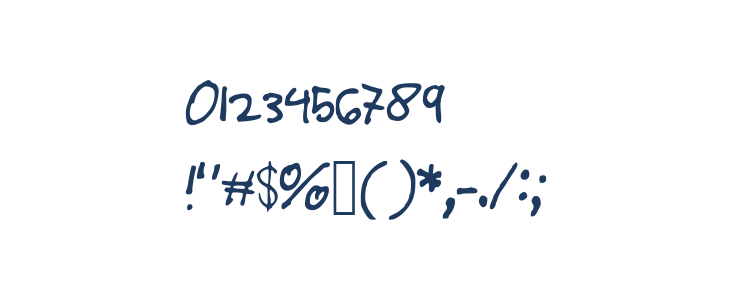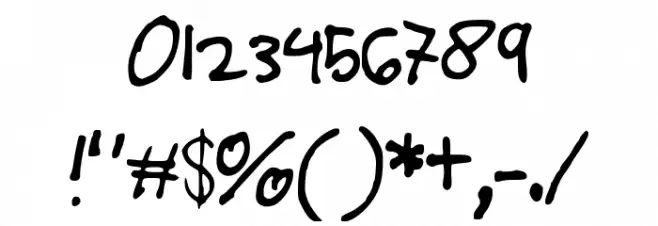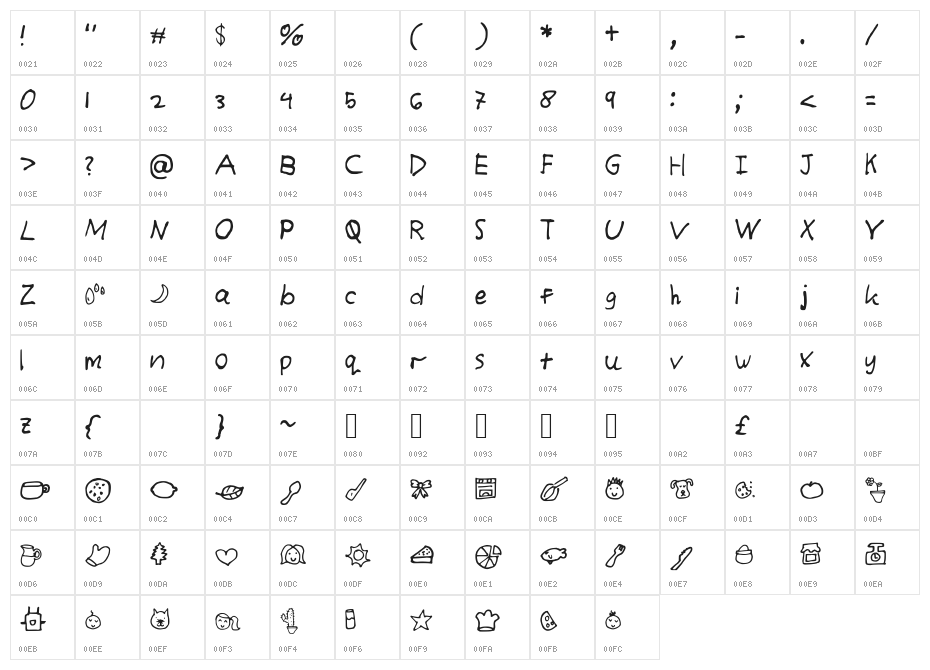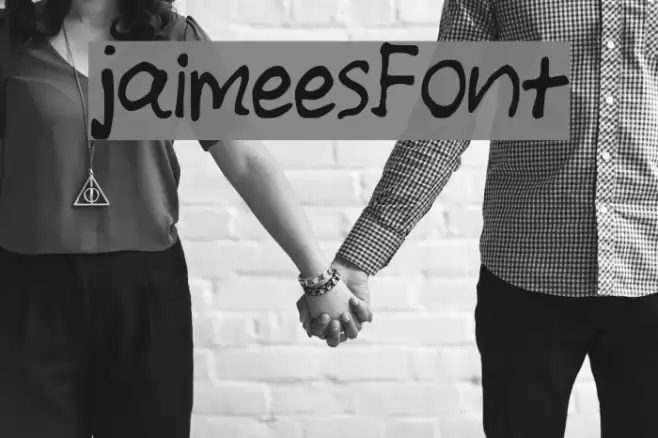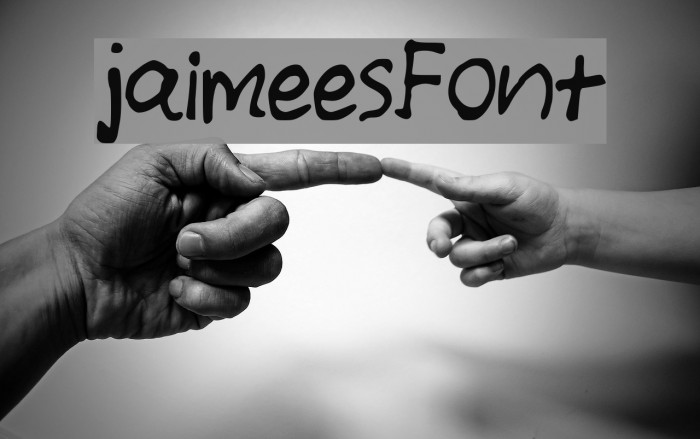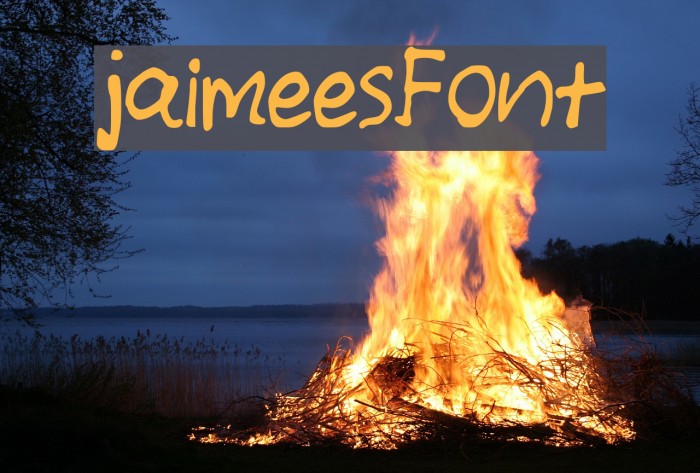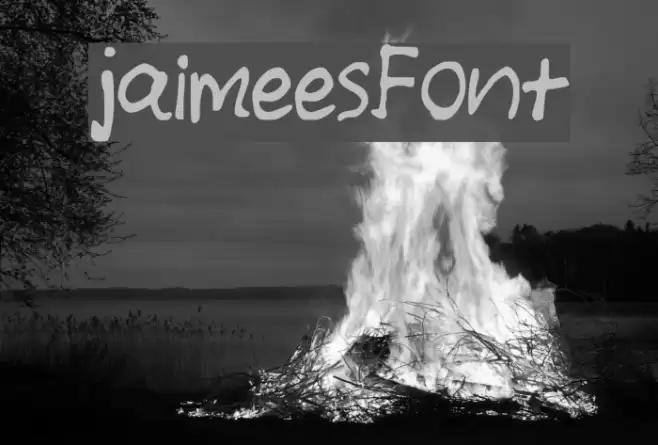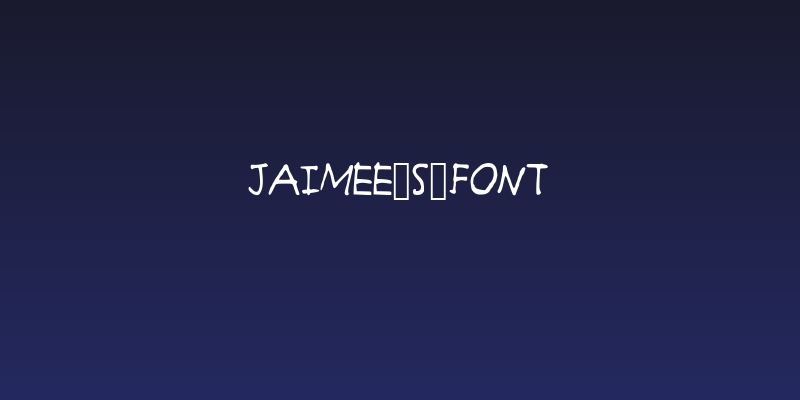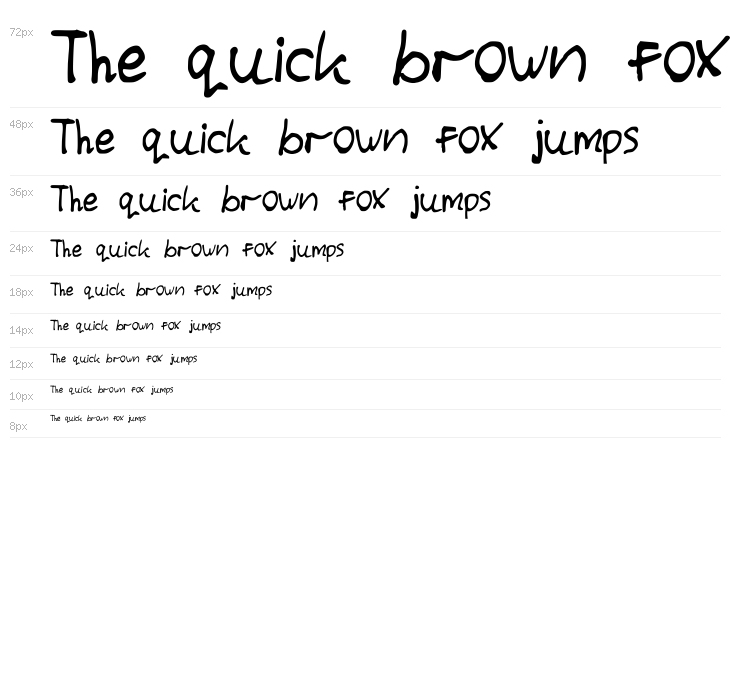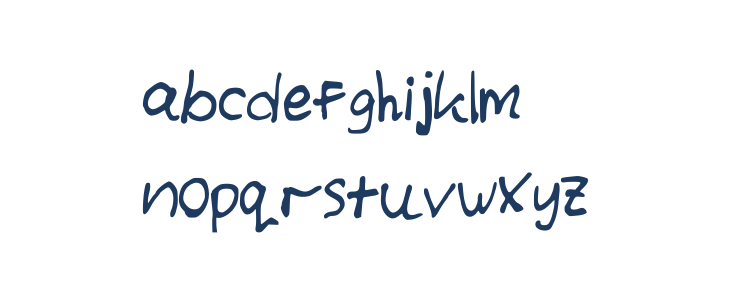
jaimee_s_Font Font
jaimee_s_Font Description
This font exhibits a playful and informal handwritten style, characterized by its irregular strokes and organic flow. The letters have a casual, almost whimsical appearance, with varying line thickness that adds to its charm. The uppercase and lowercase letters are distinct yet harmonious, maintaining a consistent style throughout. The numerals and special characters follow the same playful aesthetic, making the font versatile for creative projects. Its unique style is suitable for designs that require a personal touch or a sense of spontaneity.